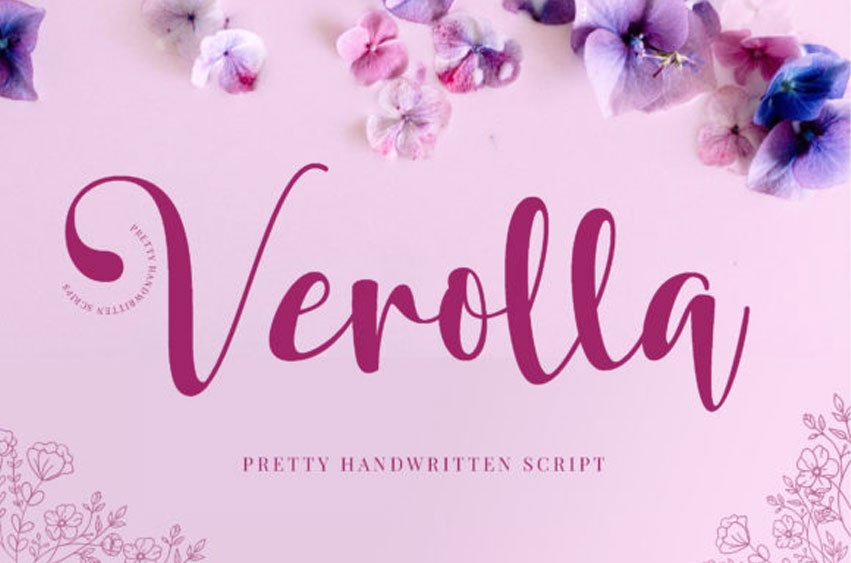
Verolla Font
Verolla Font feels equally charming and elegant.
It looks stunning on wedding invitations, thank you cards, quotes, greeting cards, logos, business cards and every other design which needs a handwritten touch.